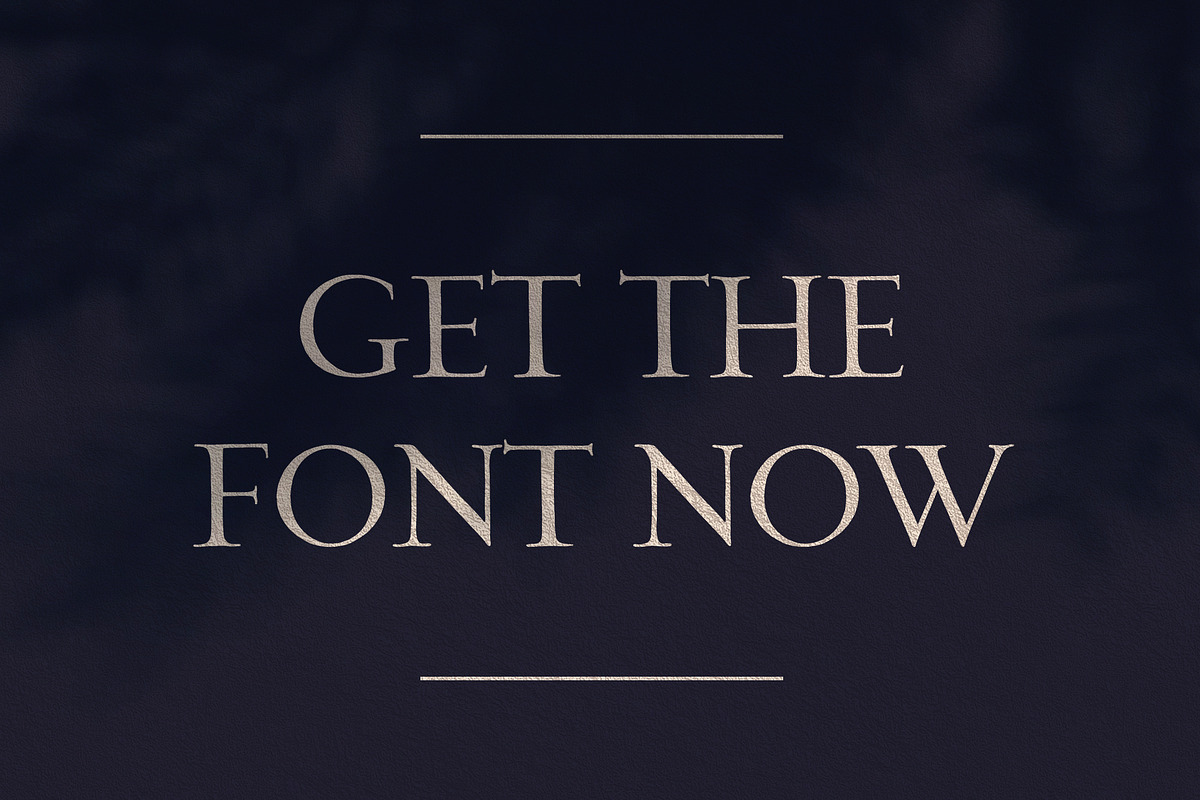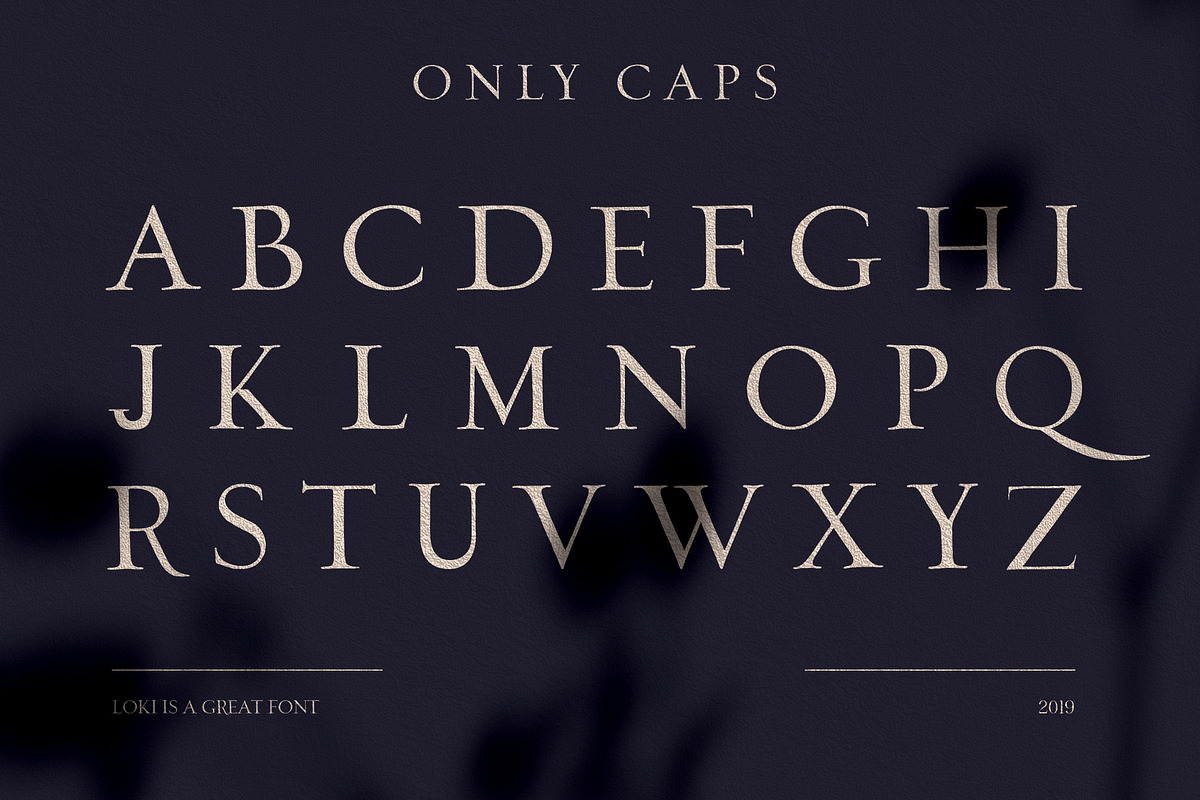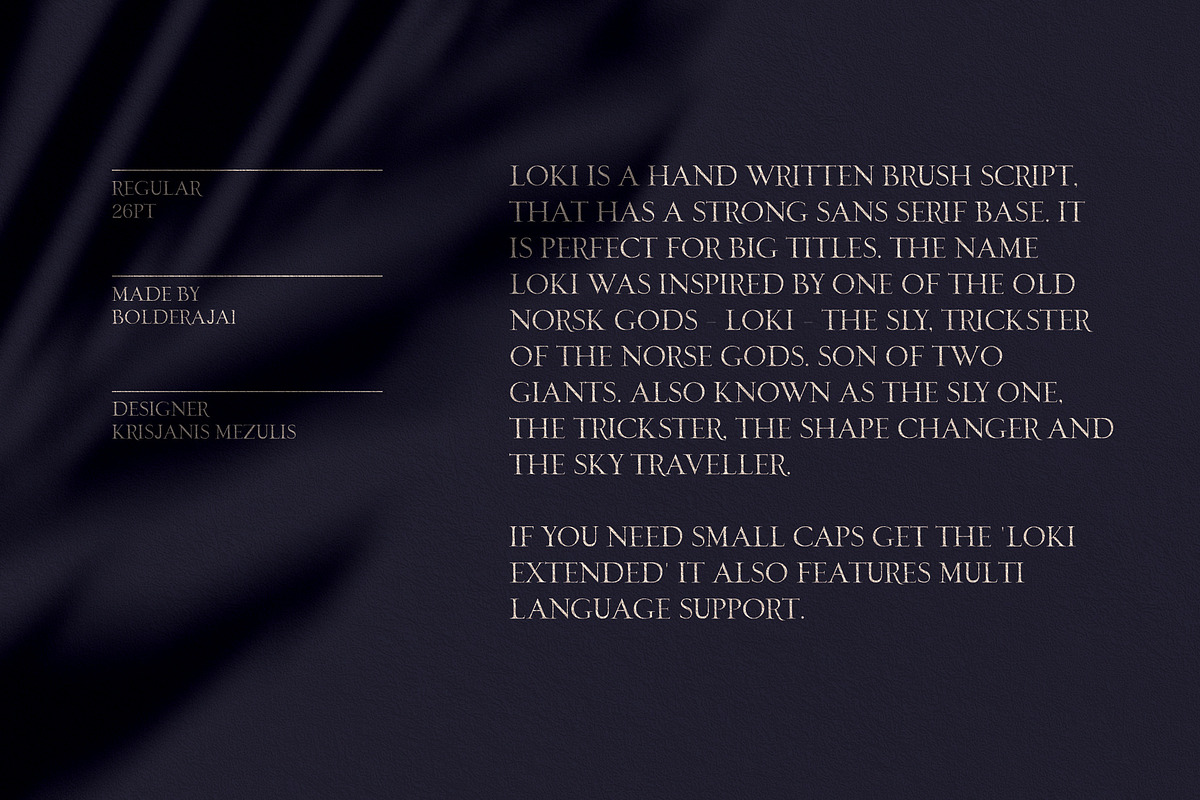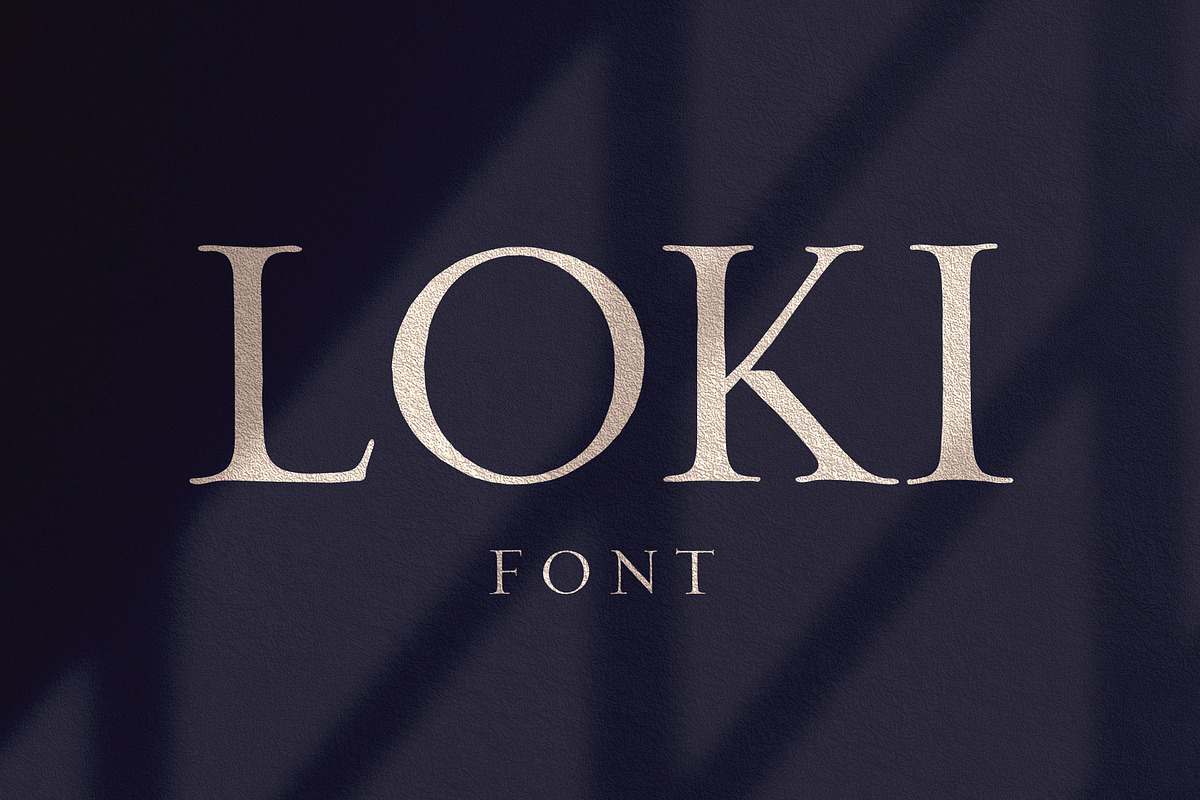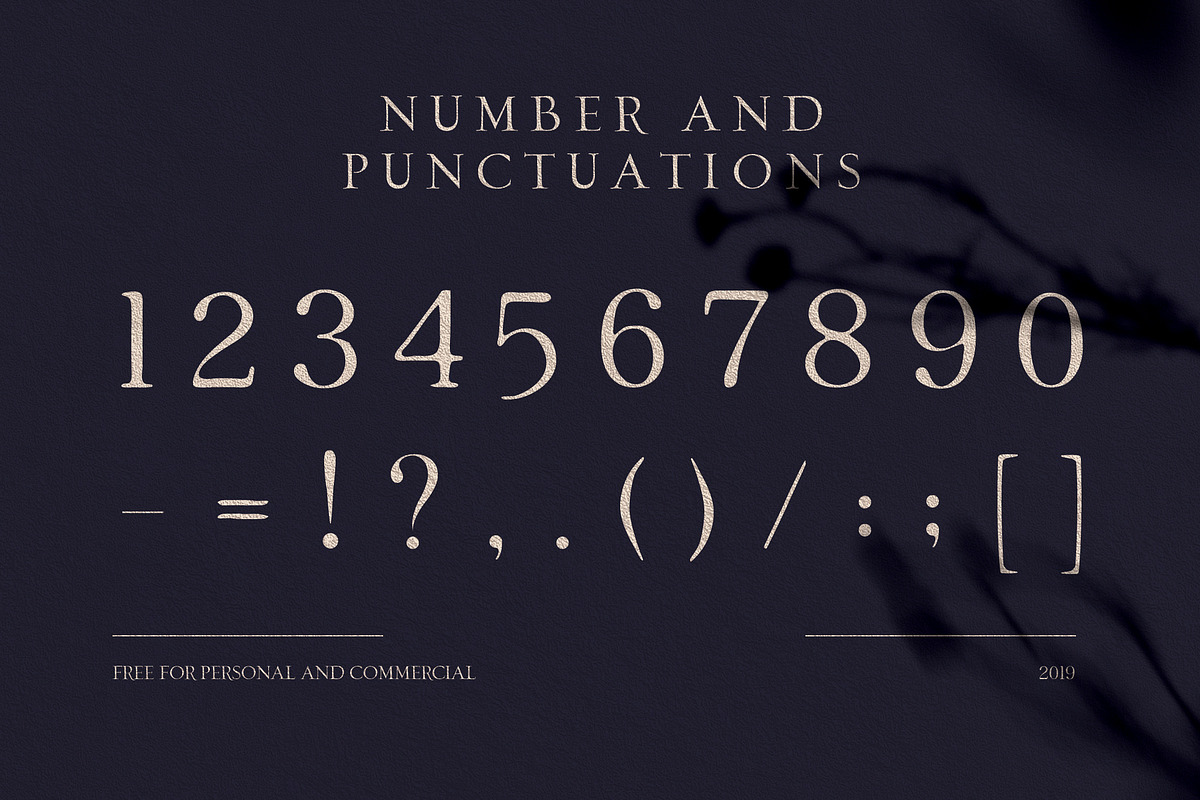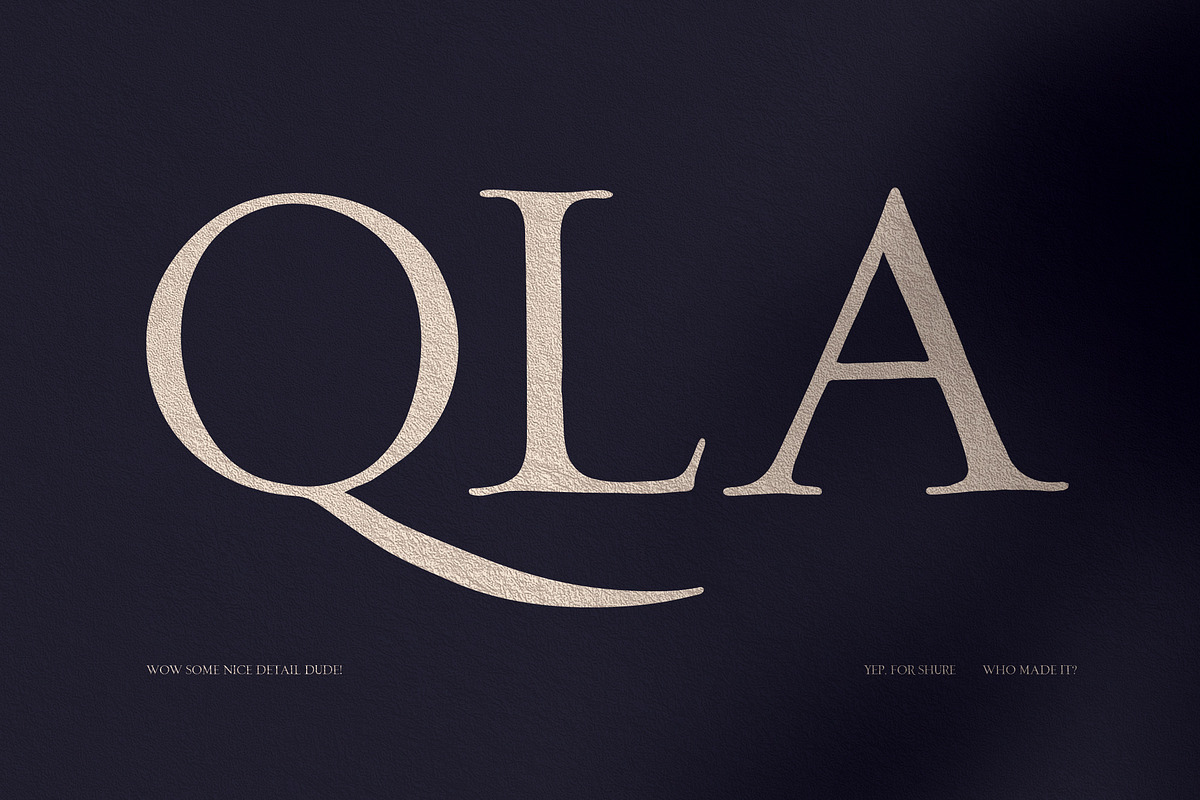
Loki – Serif Script Font
Loki is a hand written brush script, that has a strong sans serif base. It is perfect for big titles. The name loki was inspired by one of the old norsk gods – Loki – the sly, trickster of the norse gods, son of two giants. Also known as the sly one, the trickster, the shape changer and the sky traveller. The font features only Big CAPS, and has all the basic characters.